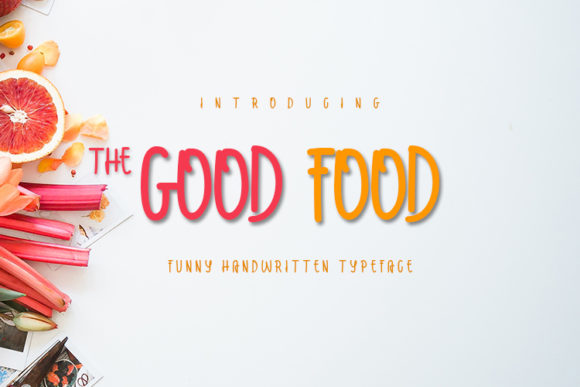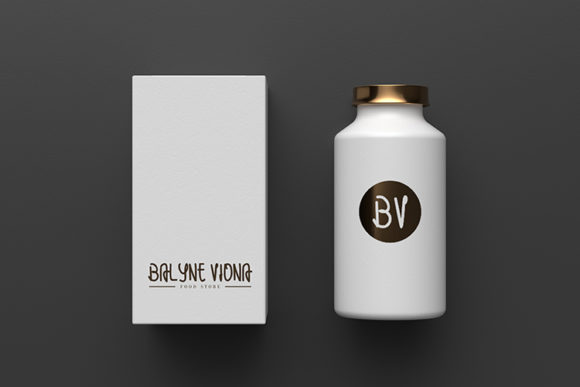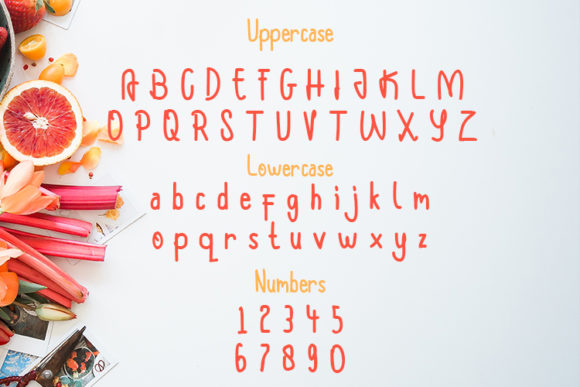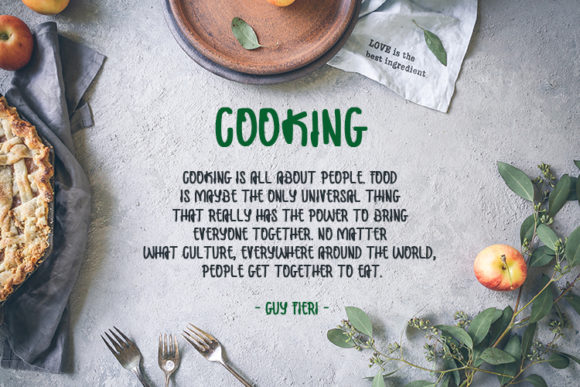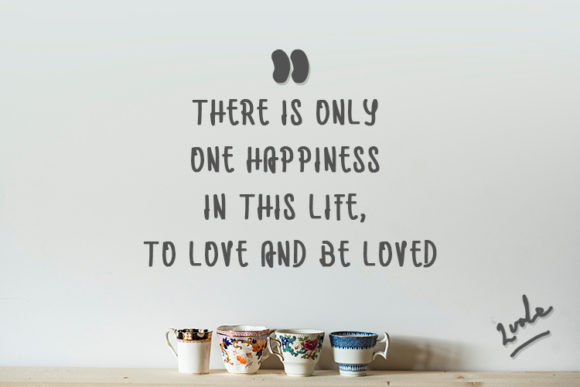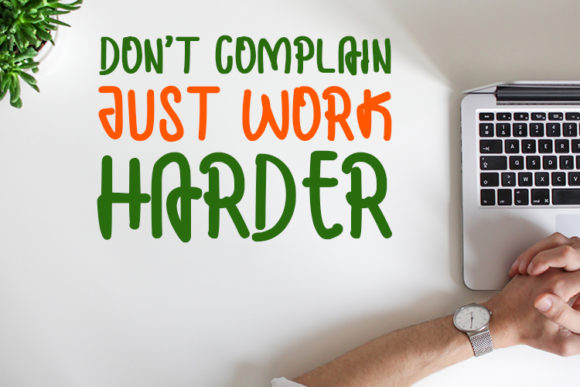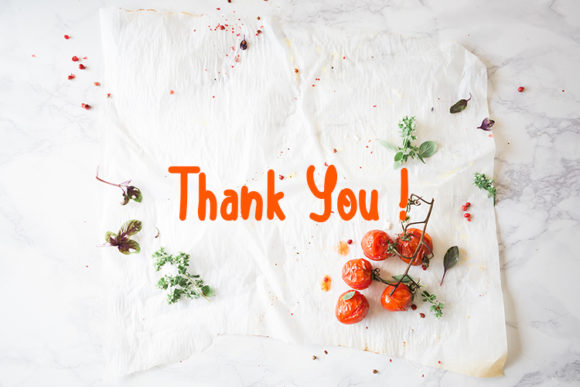
The Good Food Font
About The Good Food Font
The Good Food is a cute and unique font with various forms of letters that each have its own personality. It’s suitable for various themes, especially for food and beverages themed designs!